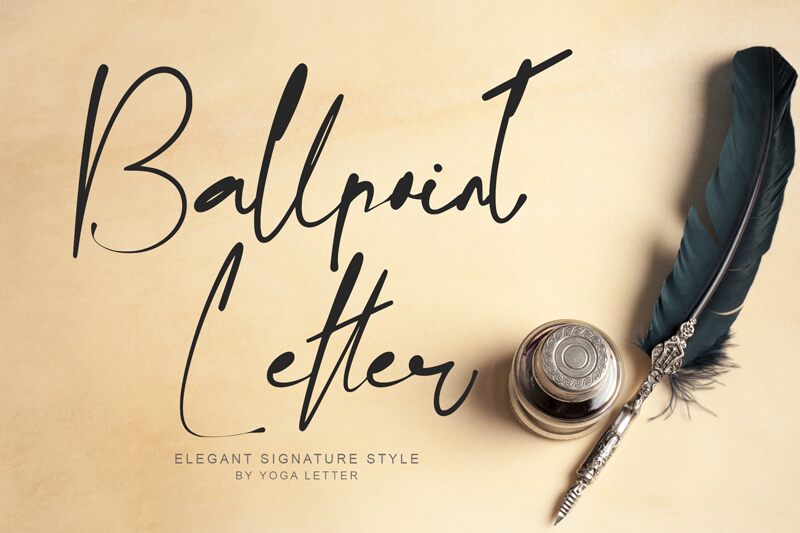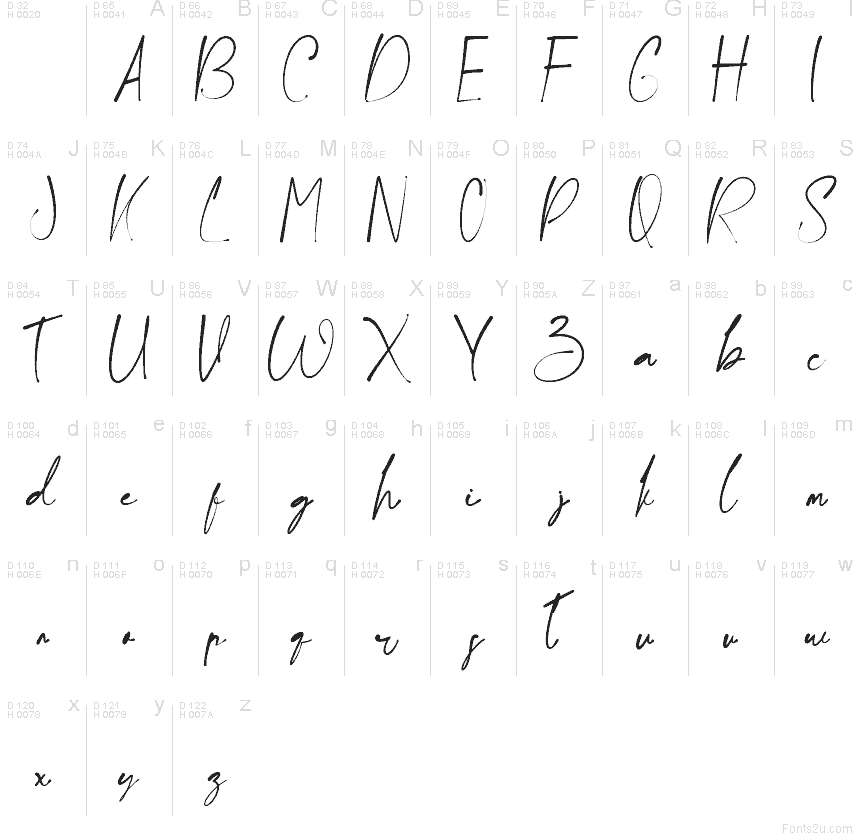
Ballpoint Letter
Ballpoint Letter font by Yoga Letter is a free handwritten script typeface that captures the scratchy charm of real ink on paper. Thin, slightly uneven strokes and quick, looping connections feel like notes dashed off with a favorite pen, complete with subtle pressure shifts that keep every word lively and human. There’s a casual elegance here—relaxed, but with enough structure to stay legible in longer phrases.
Using Ballpoint Letter, this free font really shines on signatures, personal branding, quote graphics, invitations, lifestyle blogs, and product packaging. Its airy spacing and long strokes add movement, making layouts feel spontaneous rather than stiff. For a balanced look, pair it with a clean geometric sans serif for body text and let Ballpoint Letter take the spotlight at larger sizes in headings or logotypes.